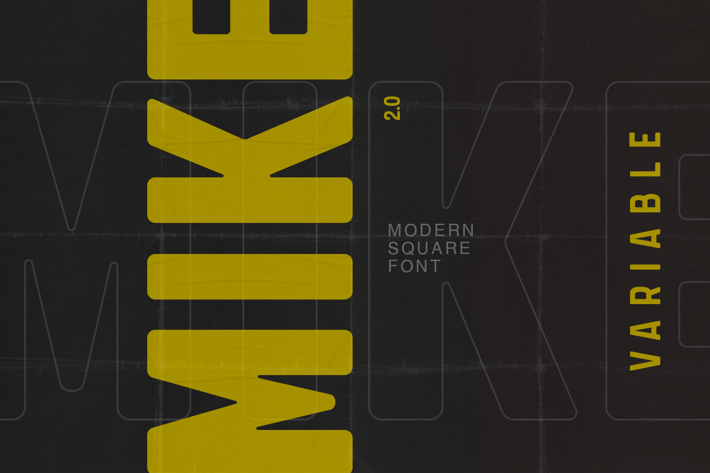
Mike Variable Font
Mike Sans is a contemporary sans serif font with a square design that enhances versatility through clean, modern glyphs. It features variable weight with unlimited options, making it ideal for a wide range of display applications.
Variable 1 Axis (weights, axis coordinates 100–900)
786 glyphs